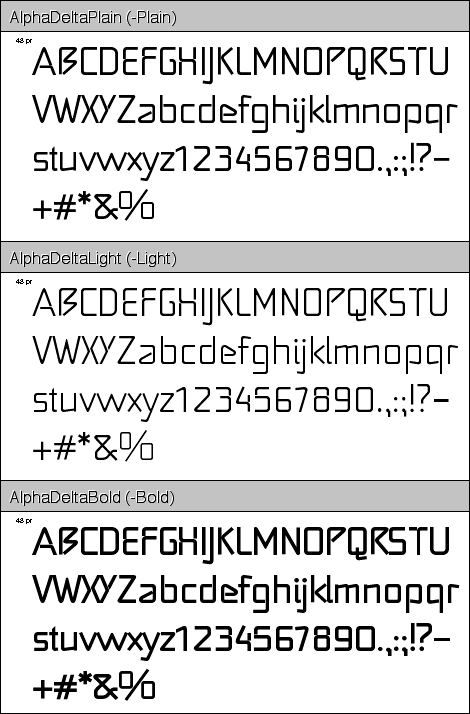
Alpha Delta Set 3 cuts (Wiescher Design)
The standard paperclip is the basic idea behind this Alpha Delta. By working on it, I changed it so that it doesn't look too much like a paperclip any more. Things happen, Gert WiescherFONTHAUS END USER LICENSE AGREEMENT